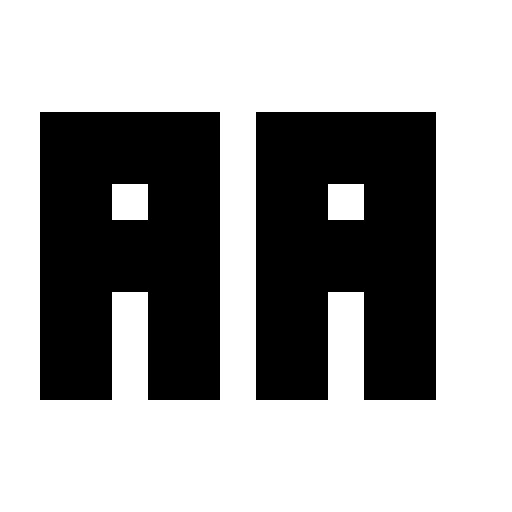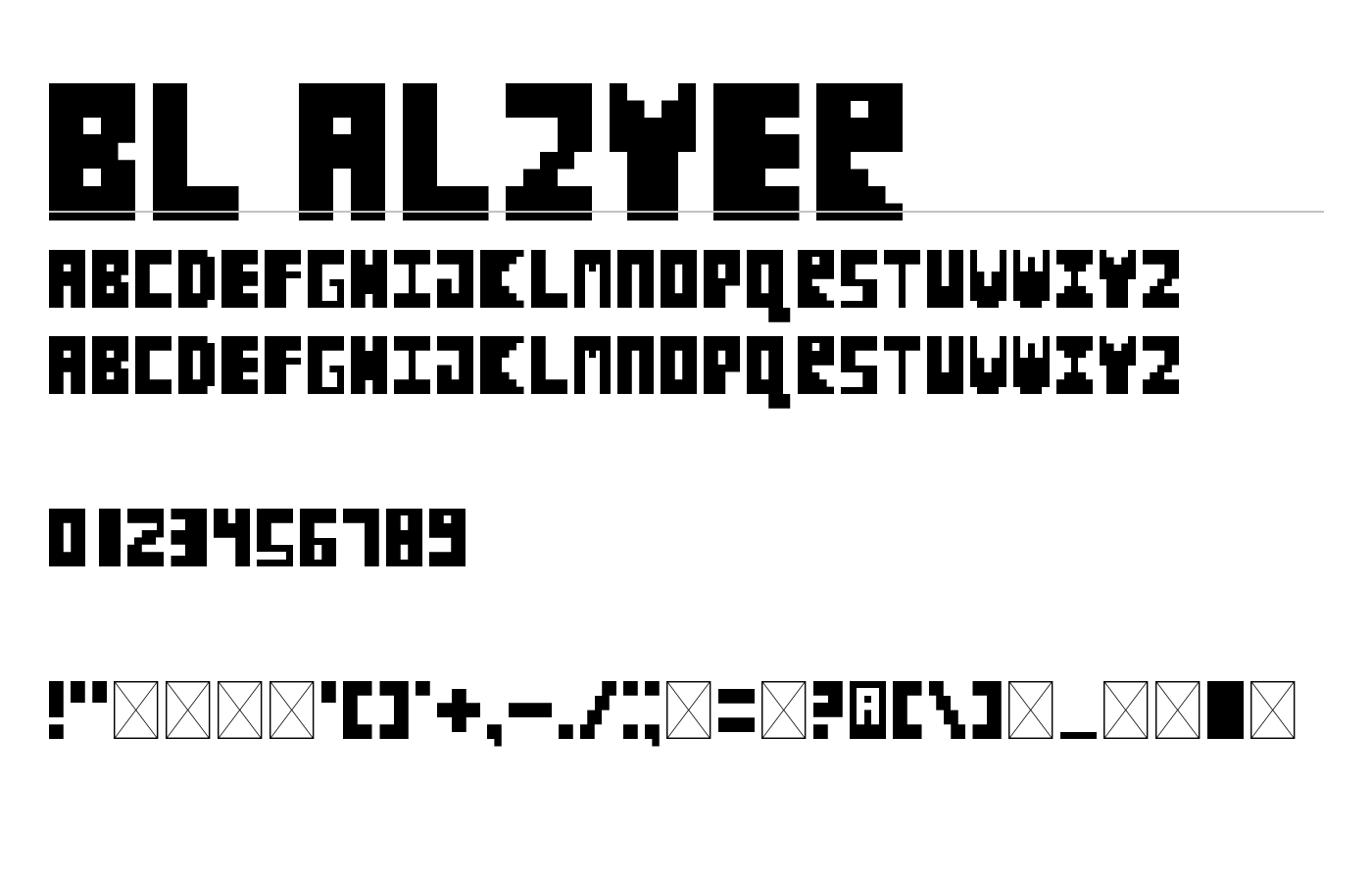
BL Alzyer is a bold, blocky pixel-style sans serif font with a strong, geometric structure that evokes a retro digital or video game aesthetic. Its consistent weight, tight spacing, and sharp edges make it ideal for headlines, posters, or branding that seeks a vintage tech or arcade-inspired look. This font works best in display settings where its unique pixelated charm can stand out and create a nostalgic yet modern vibe.
BL Alzyer Font
About BL Alzyer Font